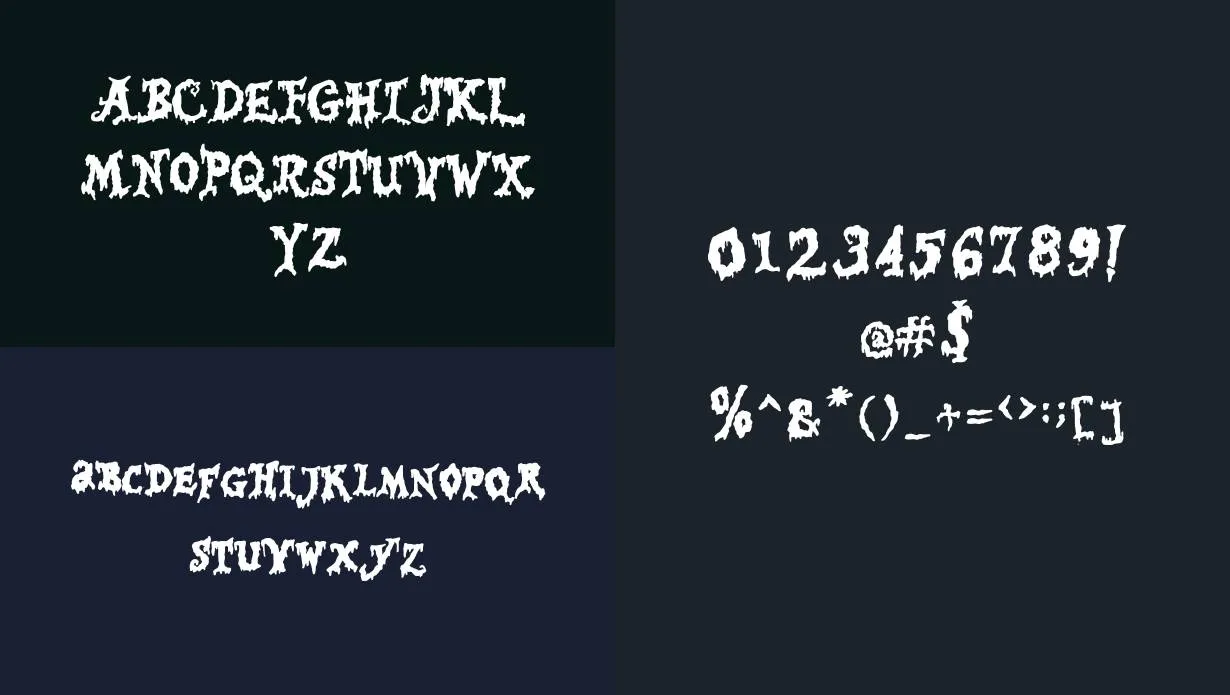
Happy Halloween Font is a fun and spooky typeface for Halloween. This spooky font was designed by Thomas Aradea and published by Letterara. It captures the spirit of the holiday. You can download it in OTF and TTF file formats